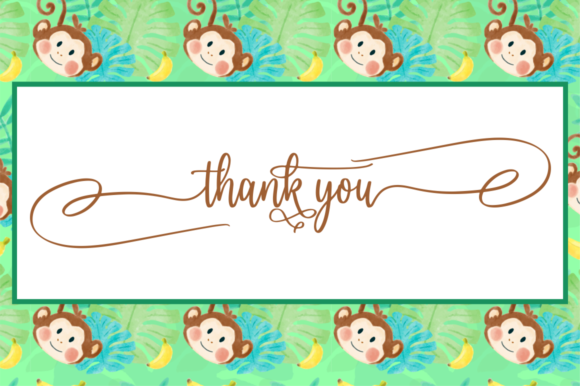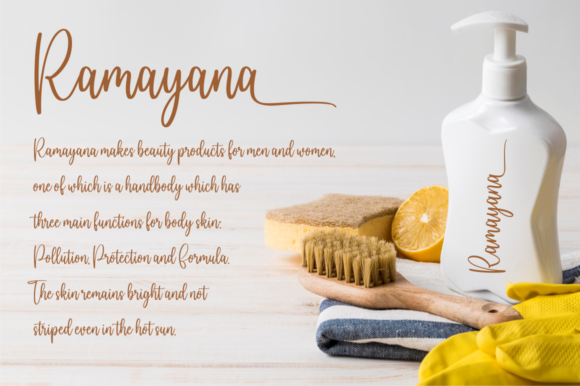
About Monkey Font
Monkey is a font that exudes loveliness and timelessness in its beautiful handwritten style. Its unique charm makes it the best choice for creating eye-catching logos, branding materials, and quotes that leave a lasting impression.
With Monkey as your creative tool, you have the freedom to explore various design ideas. Whether you’re working on a logo that needs to stand out, crafting a memorable brand identity, or designing impactful quotes, this font adapts effortlessly to bring your creative vision to life.
The handwritten quality of Monkey adds an authentic and personal touch to your designs, creating a warm and welcoming atmosphere for your audience. Each letter carries the beauty and grace of a handwritten note, making your work stand out with a touch of artistry and originality.
With PUA encoding, Monkey empowers you to access all the glyphs and swashes with ease, providing you with a plethora of creative possibilities. Customize and personalize your designs effortlessly, allowing your creativity to flourish.
Embrace the loveliness and timelessness of Monkey and experience how it transforms your designs into eye-catching works of art. Its unique and beautiful touch adds a sense of elegance and sophistication, making your designs truly captivating and memorable.
Discover the joy of creating with Monkey as your trusted companion. Let its beauty and charm be the key to unlocking your creativity and bringing your design ideas to life.
Whether you’re designing for personal projects or professional endeavors, Monkey is the font that adds that extra touch of flair and allure to your creations. Embrace the timeless appeal of Monkey and let it be the font that sparks your inspiration and brings your designs to life. Experience the magic of Monkey and witness how it breathes life into your designs, making them truly special and unforgettable.